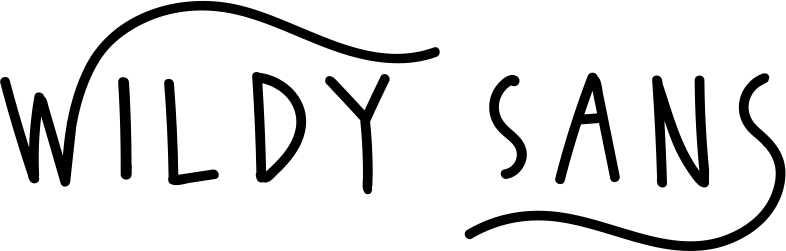
Wildy Sans Font
You can count on this handwritten font that has a cute, fun, and childish feel with a personal look. Wildy Sans has characters that match the human’s handwriting but with this particular font, the letters have a swash effect making the doodle letterforms more stylish and attractive.
This retro surf font offers only two sets of capitalized alphabets, numbers, and punctuations that are perfect for comic books, cartoons, school books, fashions, websites, and wherever you need a fancy script handwriting font.